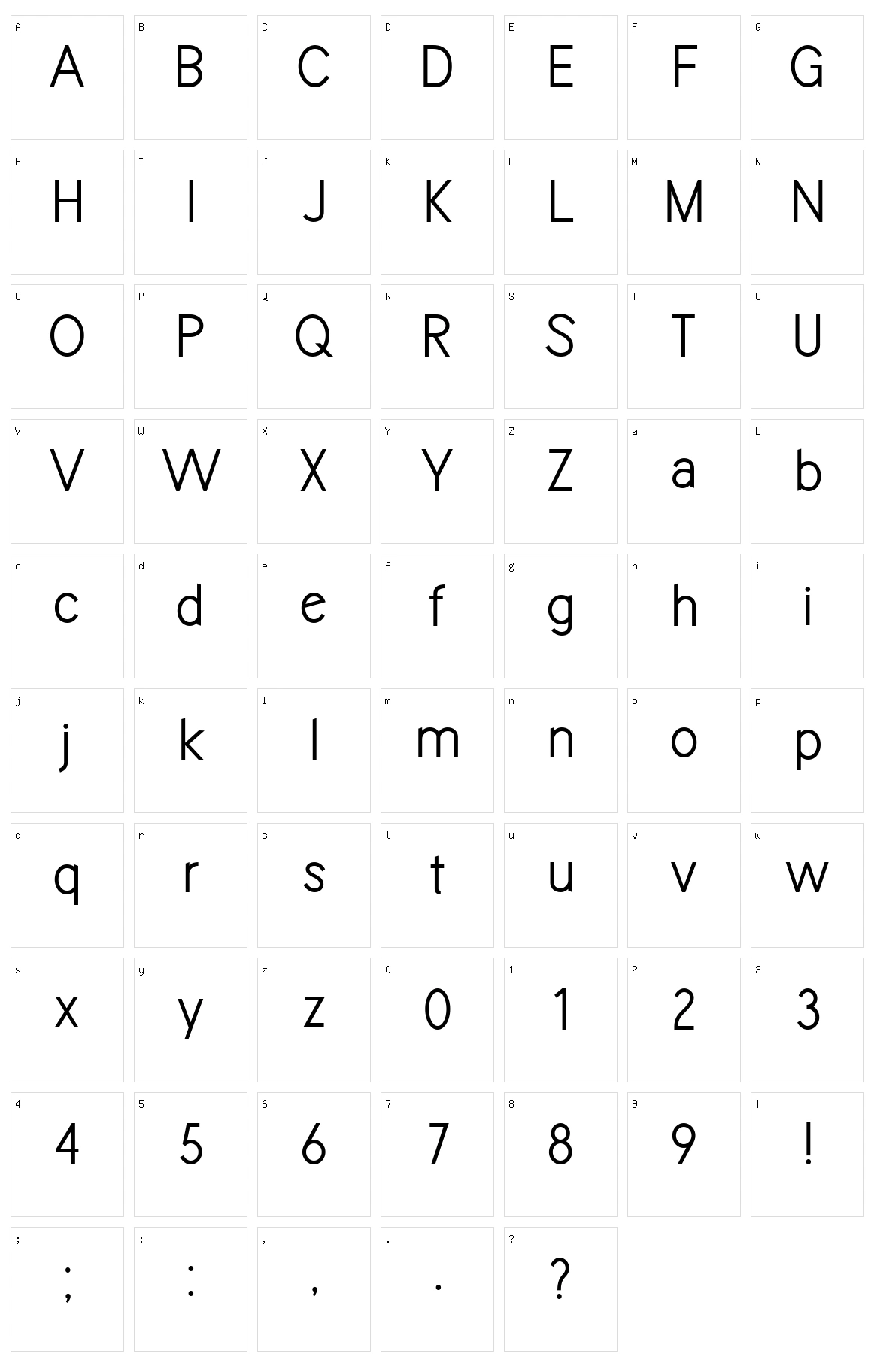
Sparkler
Designed by: Roland Huse Design
Category: Sans serif
ÿþSPARKLER is a slightly condensed clean font.
This font is a DEMO version of a 3 weight family (light, regular and bold).